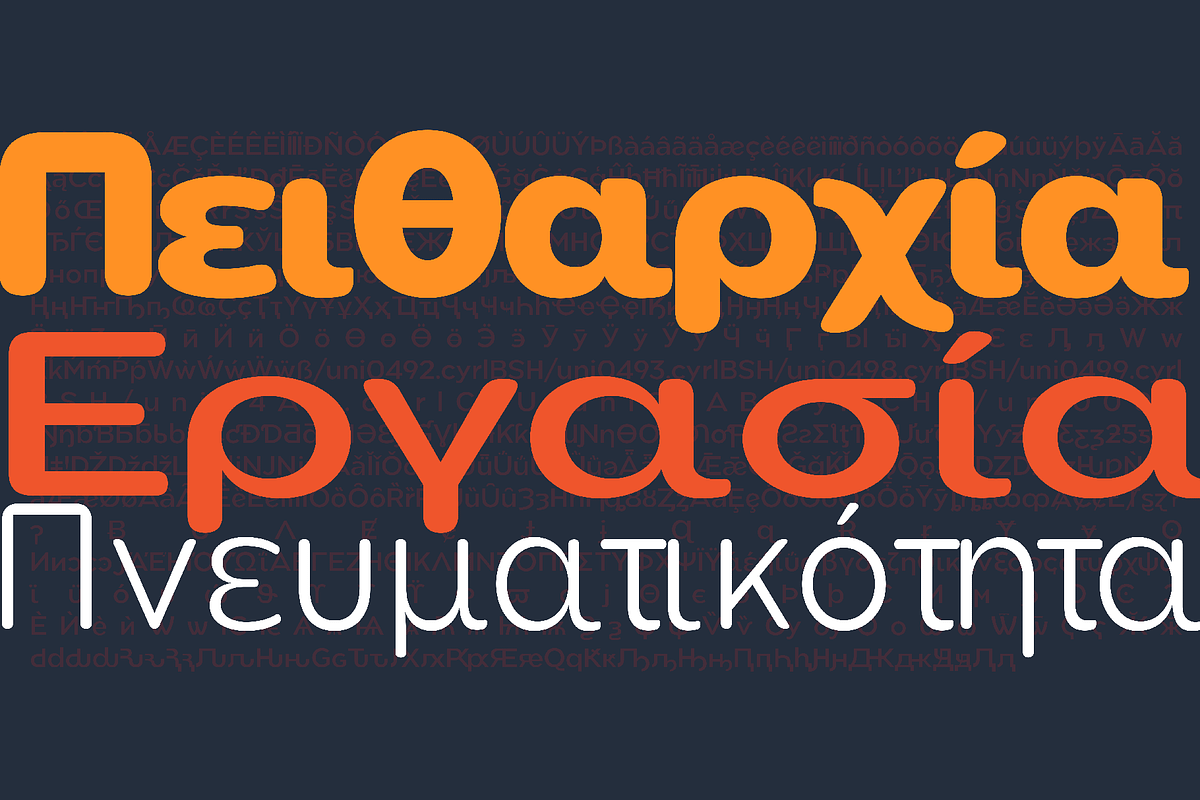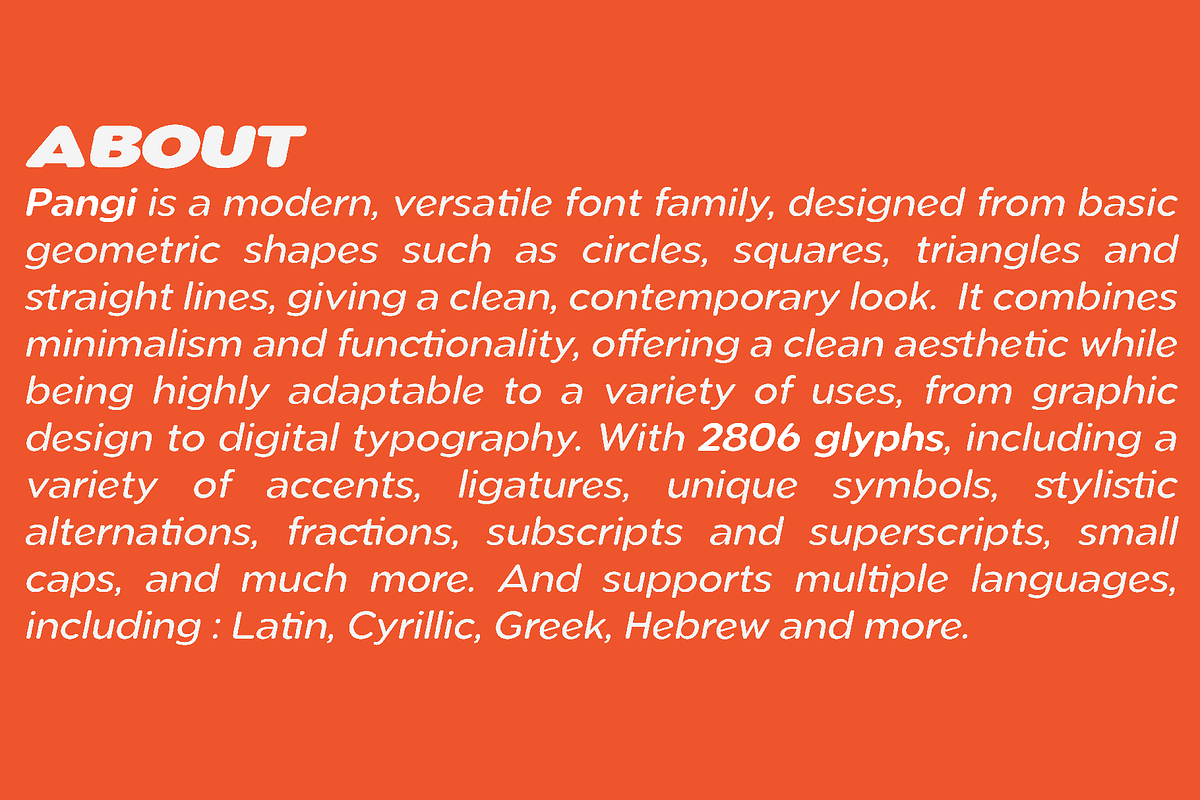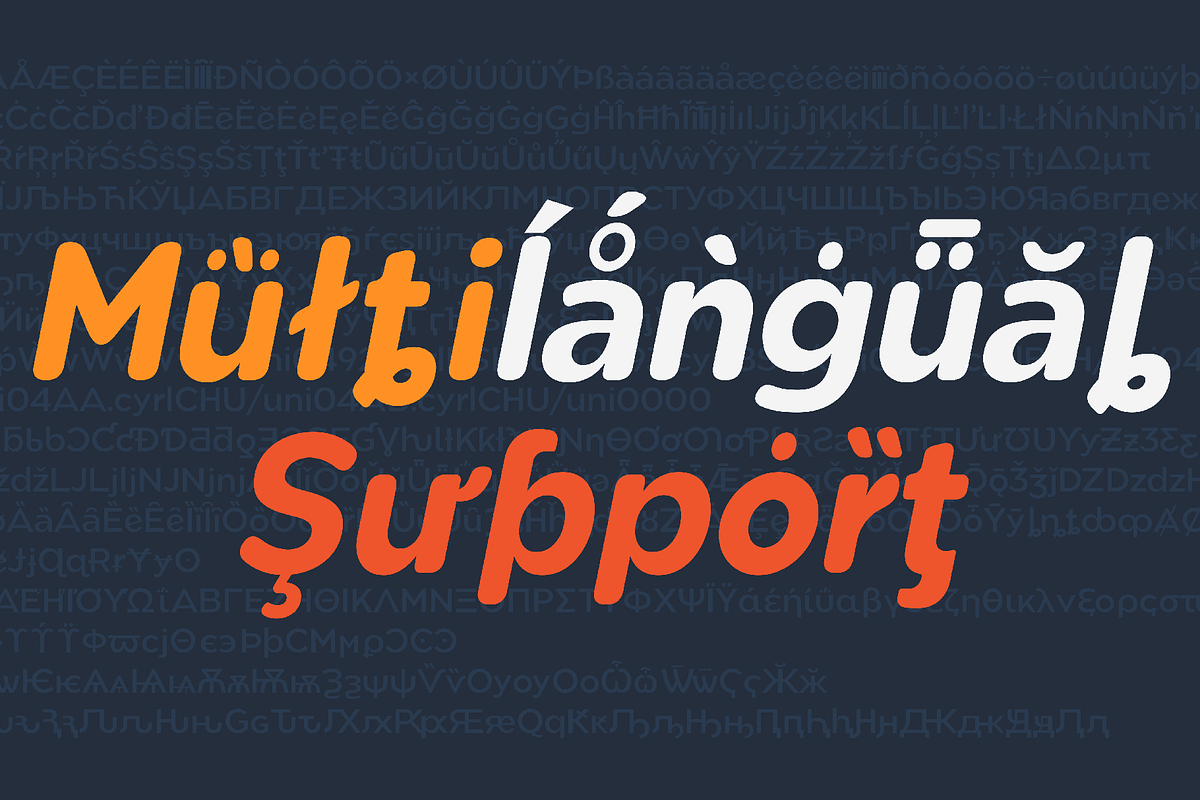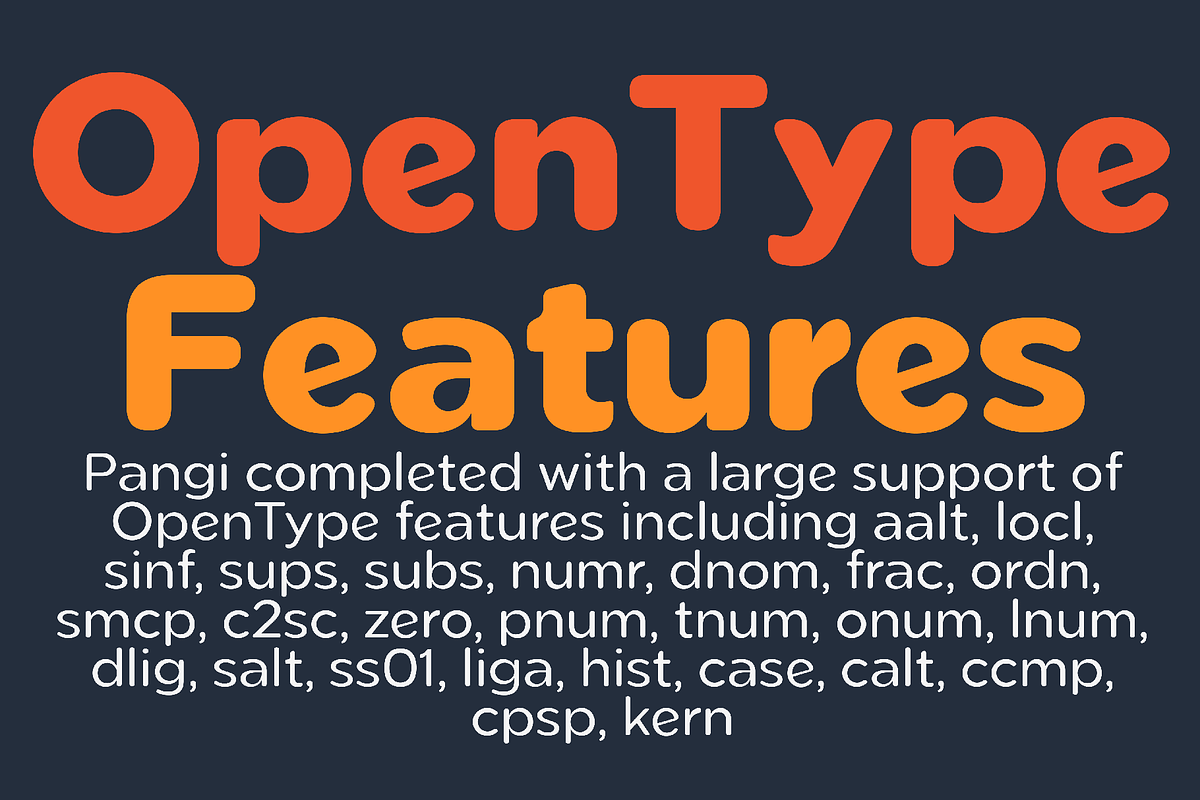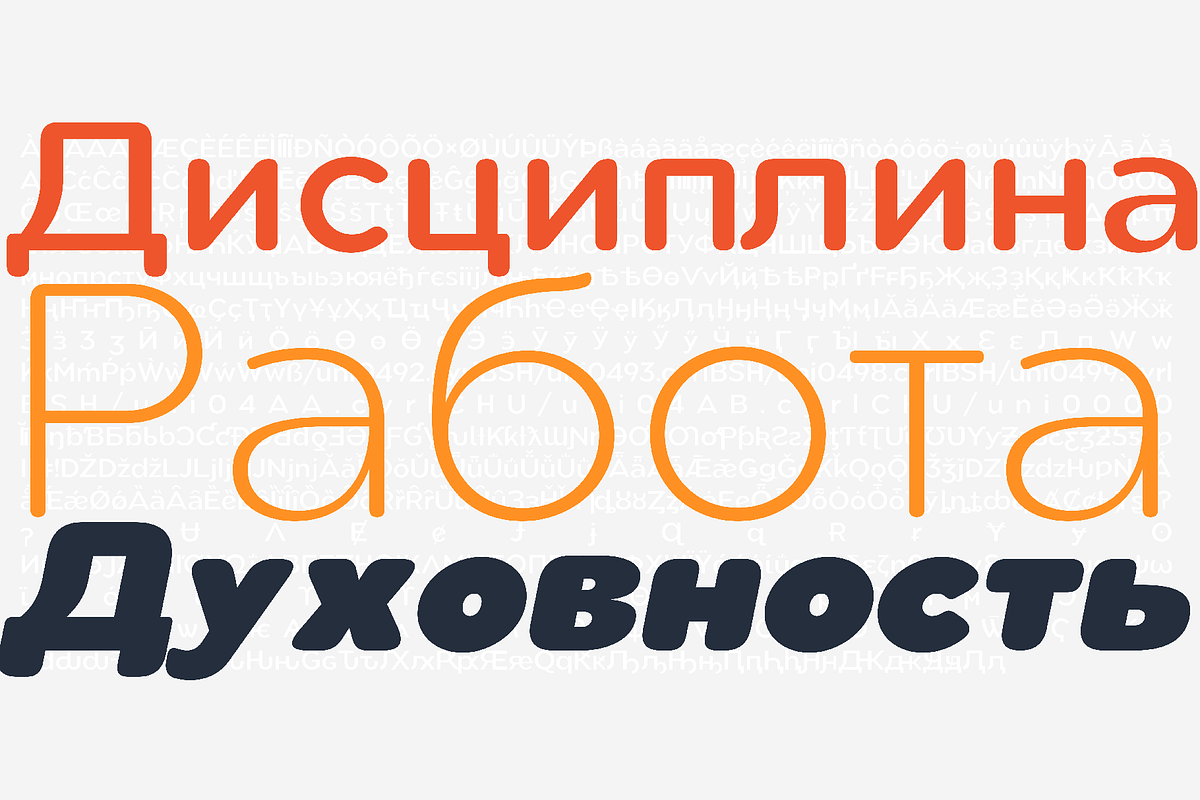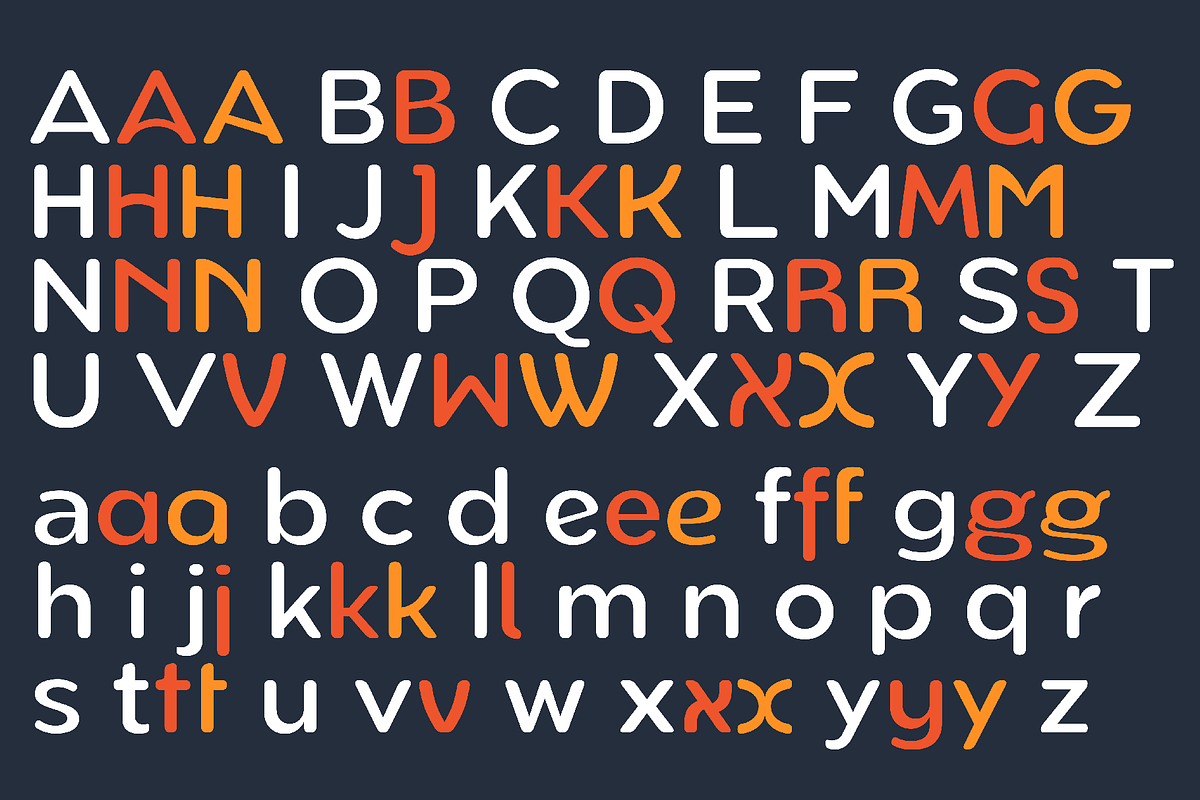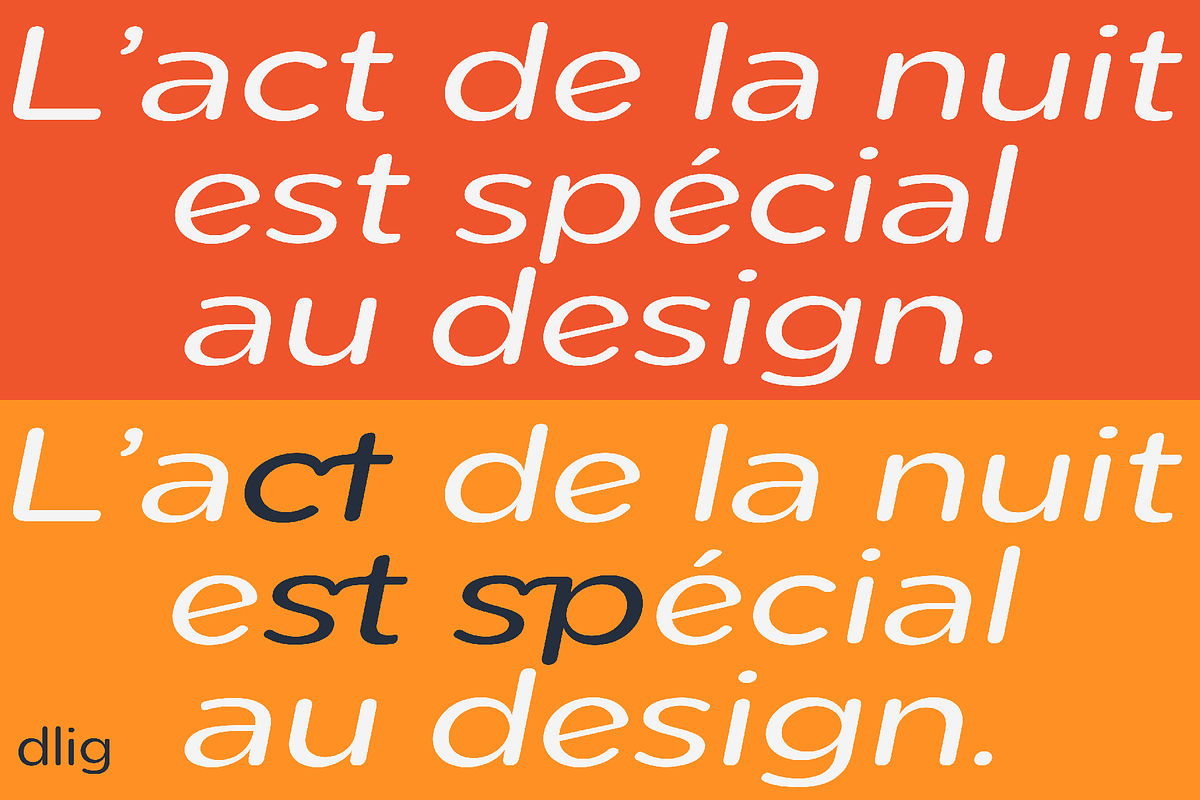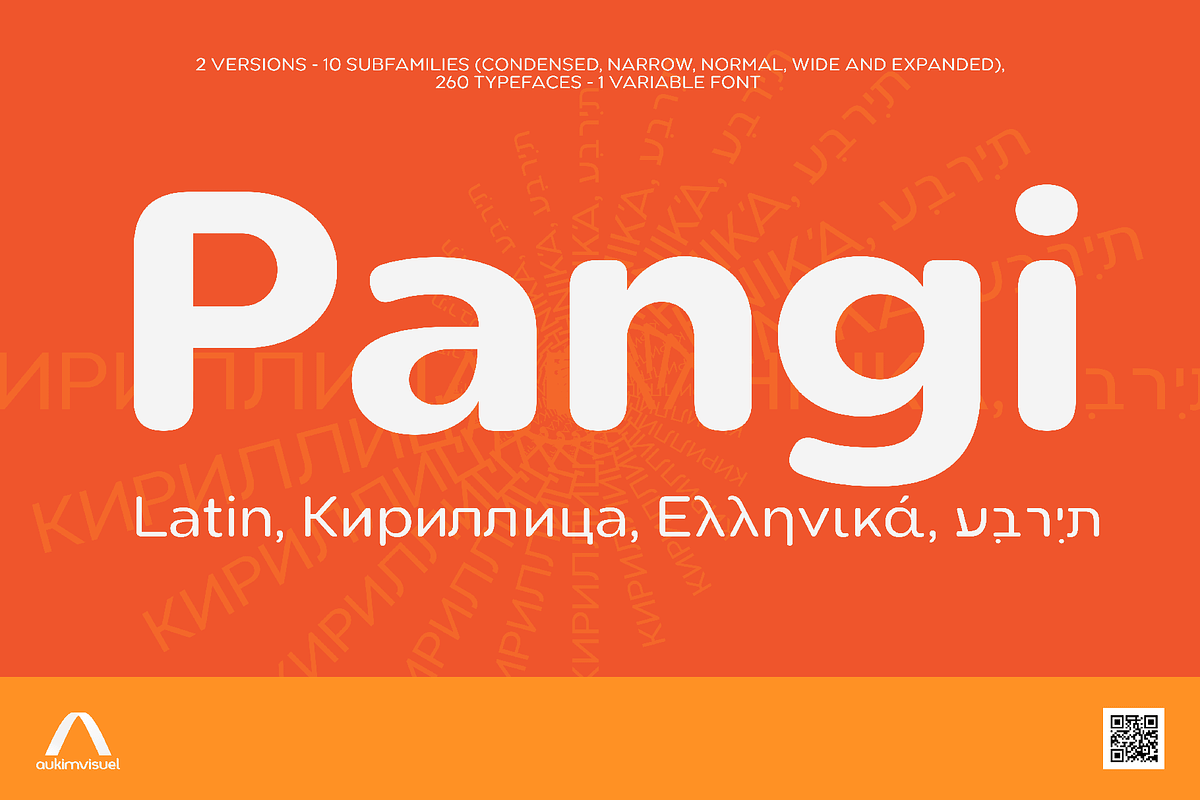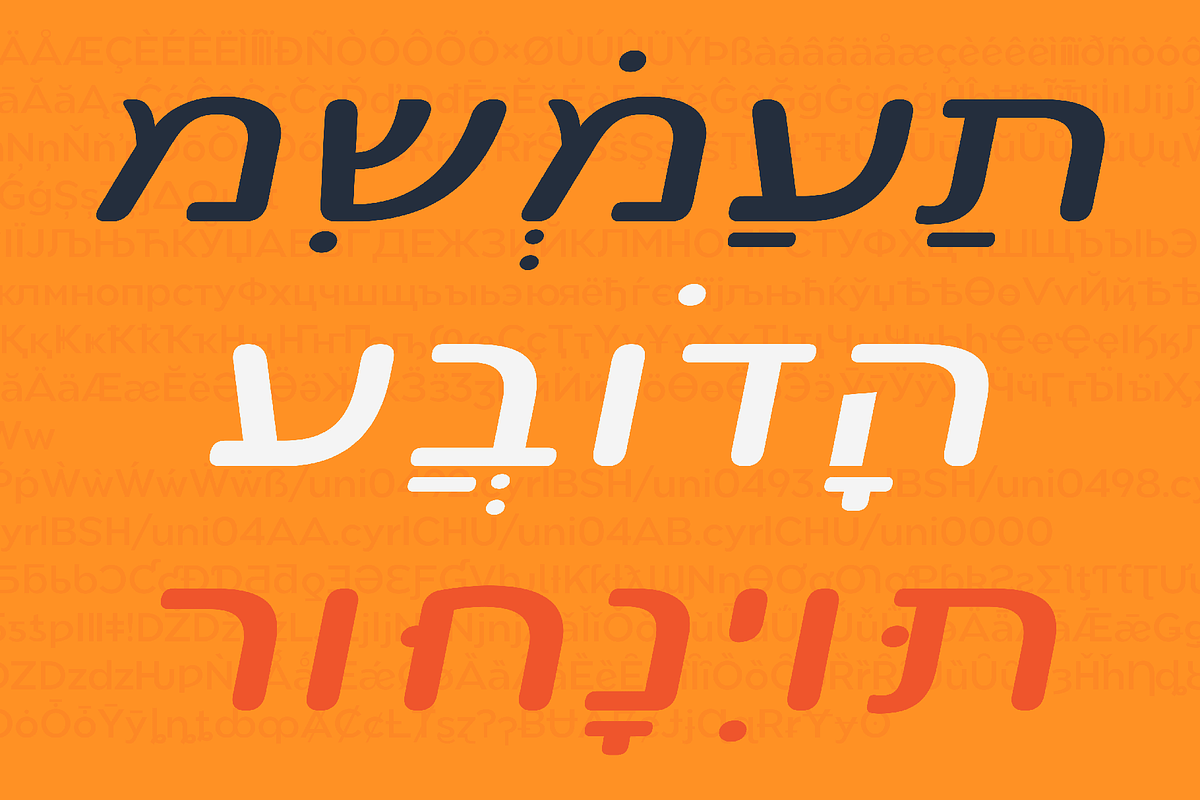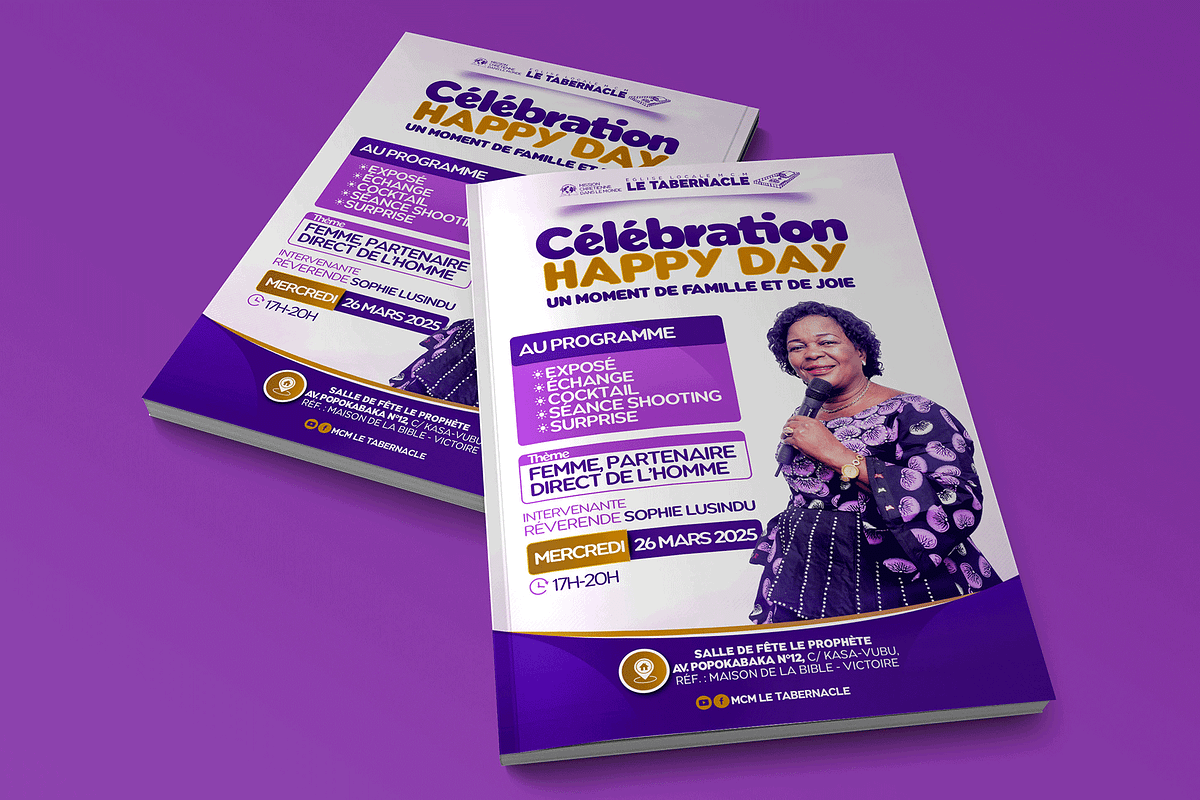
Pangi Rounded
Pangi is a modern, versatile font family based on basic geometric shapes (circles, squares, triangles and straight lines). It combines minimalism and functionality, offering a clean aesthetic while being highly adaptable to a variety of uses, from graphic design to digital typography.
Key features :
In 2 versions : basic and rounded, available in 10 subfamilies (condensed, narrow, normal, wide and expanded) for a total of 260 fonts and a variable font. There are 13 weights with true italics.
With 2806 glyphs : a vast selection of characters, symbols and icons, offering unrivalled flexibility and typographic richness.
Over 24 OpenType features : users can take advantage of a wide range of typographic options, such as contextual ligatures, stylistic alternates, case sensitivity, Elzevirian, tabular and proportional numerals, automatic fractions and much more.
Multilingual support : this font is designed to be universal, supporting many languages with Latin alphabets (with accents for European, African languages, etc.), Cyrillic (Russian, Ukrainian, Serbian, etc.), Hebrew, Greek (modern and ancient), and many others.
Uses :
Graphic design : perfect for posters, brochures, logos, packaging and other graphic creations requiring a modern touch.
Web and user interface : thanks to its clarity and legibility, it’s ideal for websites and applications.
Publications: also suitable for books, magazines and other printed or digital publications.
Signage : signs, maps, guides.
Pangi was born of the idea that geometric simplicity can adapt to the complexity of languages and cultures. It aims to be a universal font, while retaining a strong, modern visual identity. It’s the dream typographic solution for creatives and designers looking to bring an advanced, elegant touch to their projects.